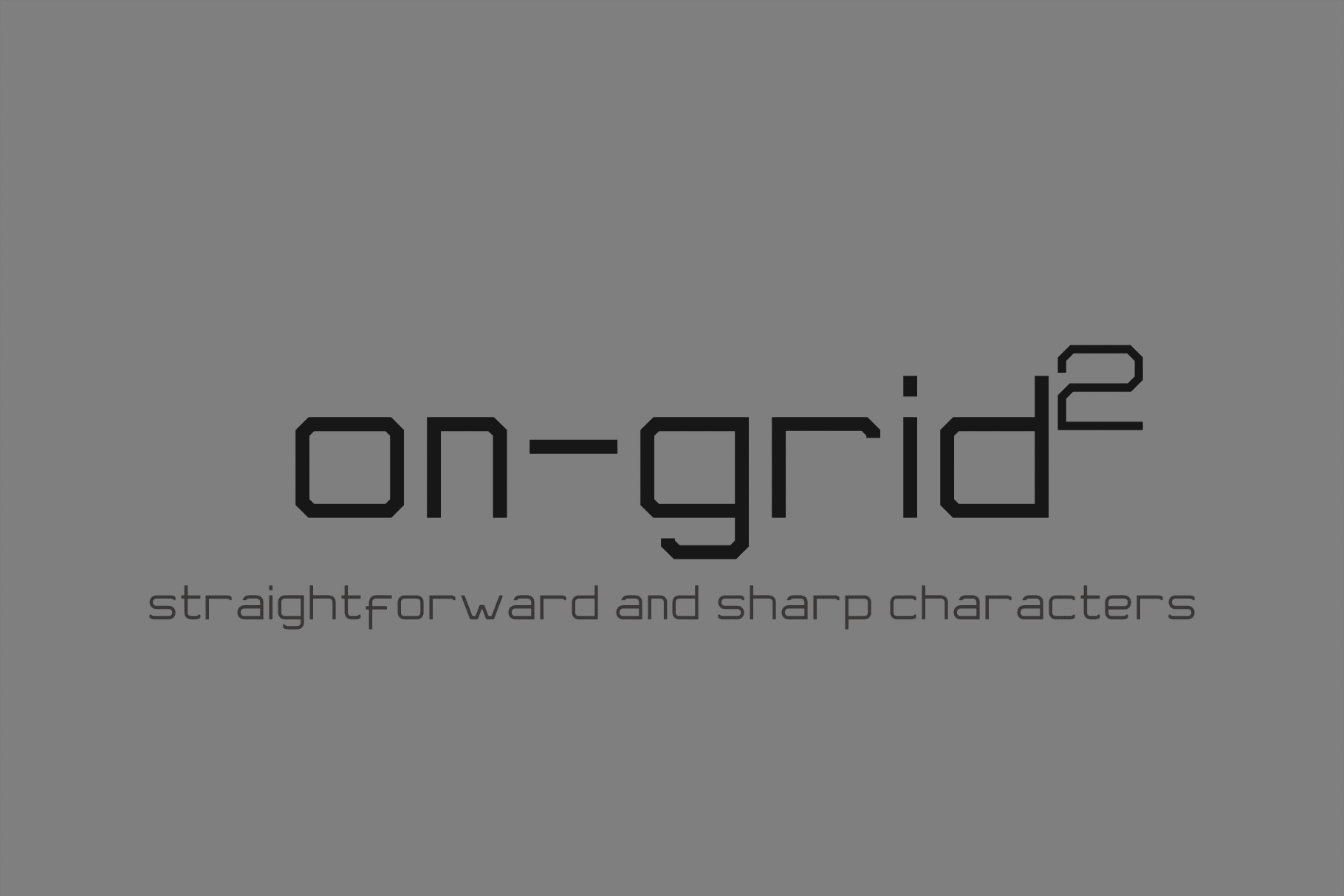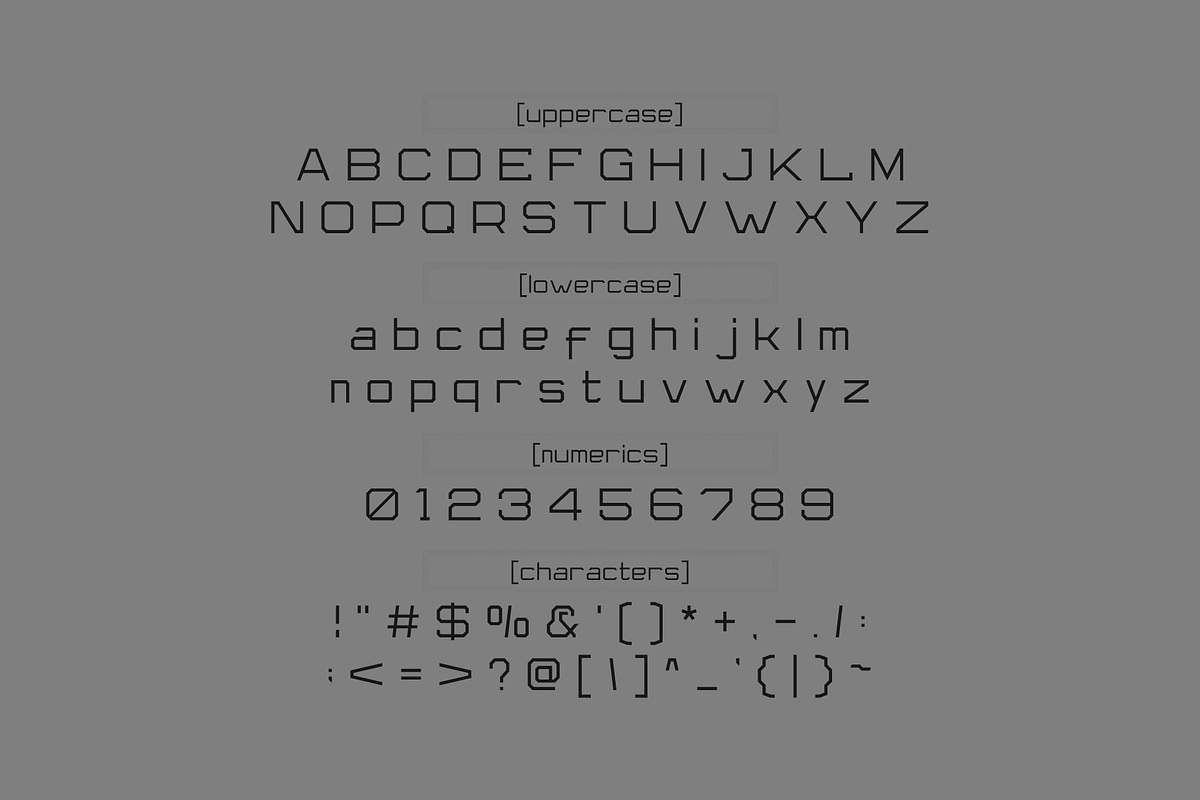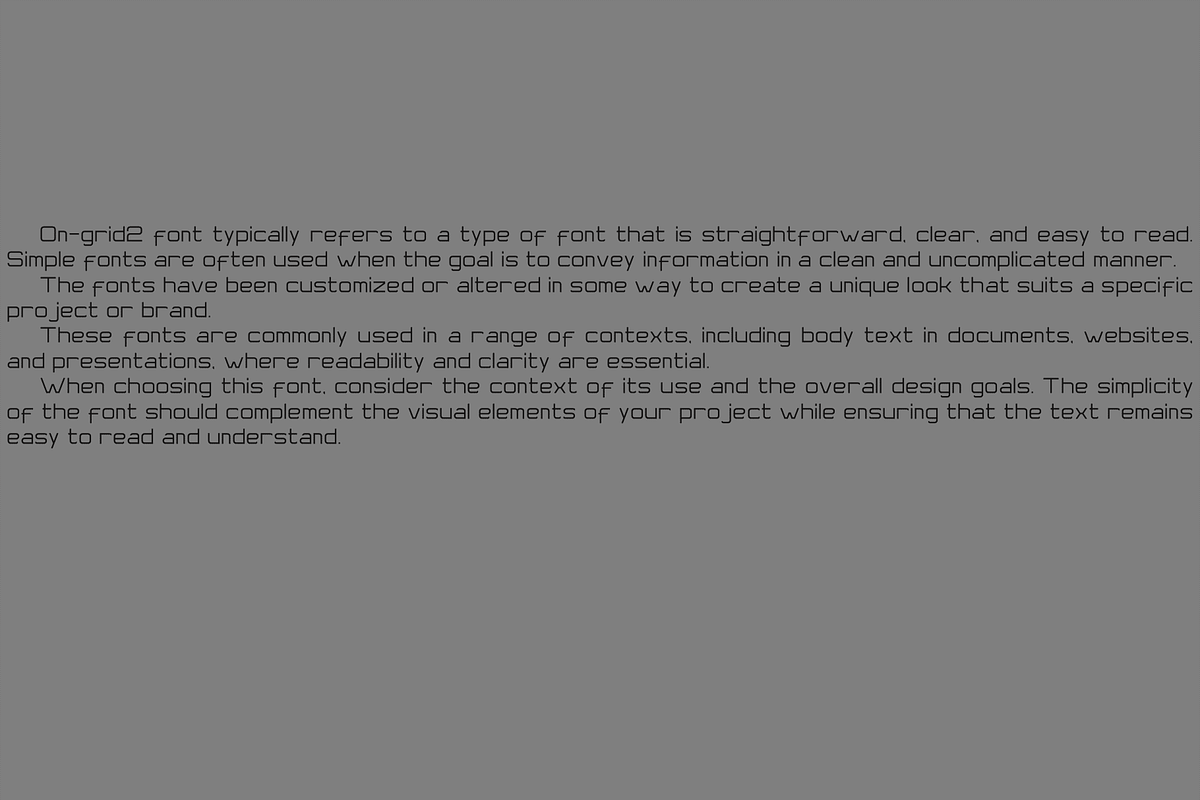
on-grid2 font
On-grid2 font typically refers to a type of font that is straightforward, clear, and easy to read. Simple fonts are often used when the goal is to convey information in a clean and uncomplicated manner.
The fonts have been customized or altered in some way to create a unique look that suits a specific project or brand.
These fonts are commonly used in a range of contexts, including body text in documents, websites, and presentations, where readability and clarity are essential.
When choosing this font, consider the context of its use and the overall design goals. The simplicity of the font should complement the visual elements of your project while ensuring that the text remains easy to read and understand.